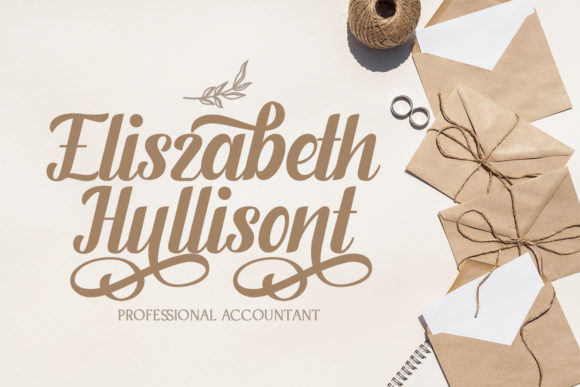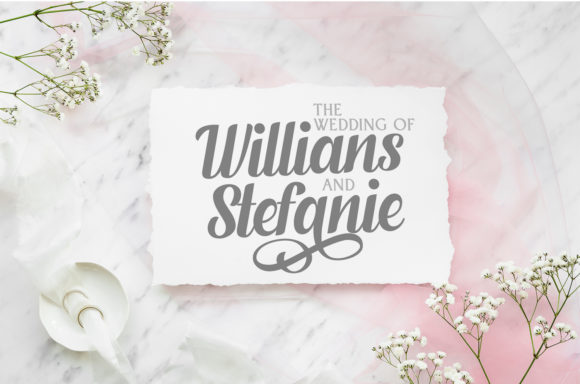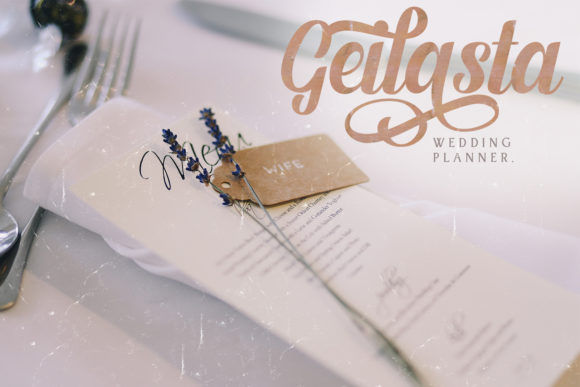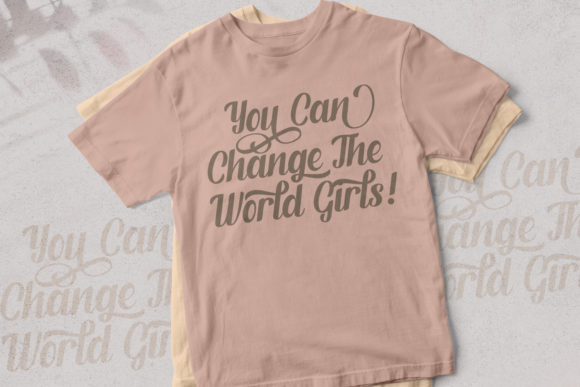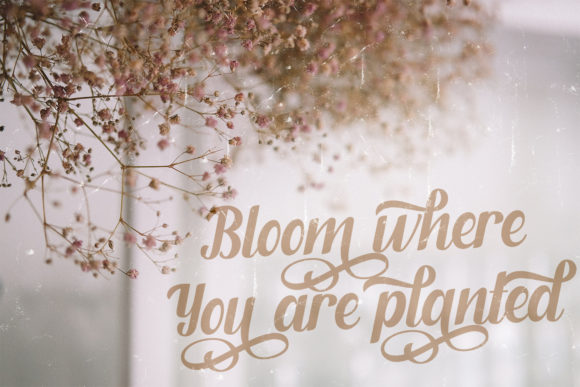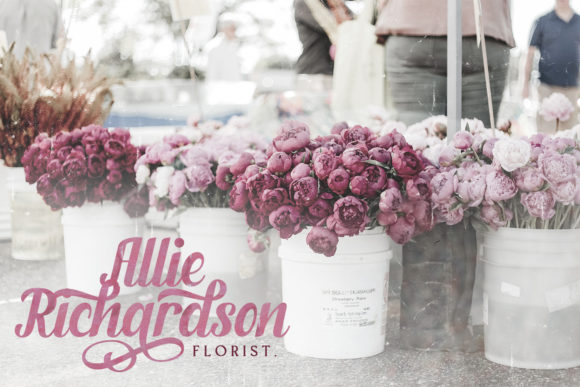
Fendysa Font: The Ultimate Handwritten Script for Creative Projects
Are you a designer, crafter, or DIY enthusiast looking for a font that can add a touch of personality to your creative projects? Look no further than Fendysa Font! This cute and casual handwritten font is designed to bring a friendly feel to any design, making it perfect for a wide range of applications, from Instagram posts to calligraphy scripts.
What Makes Fendysa Font So Special?
Fendysa Font is a script font that boasts an incredibly friendly feel, making it ideal for designers and crafters who want to add a personal touch to their work. The font features gorgeous swashes and ligatures that make it incredibly versatile, allowing you to use it for a variety of creative projects. Whether you’re designing a social media post, a DIY project, or a marketing material, Fendysa Font is sure to turn your idea into a true piece of art!
Key Features of Fendysa Font
So, what makes Fendysa Font so special? Here are some of its key features:
- Alternate Glyphs and Ligatures: The font features a wealth of special features, including alternate glyphs and ligatures. These allow you to customize your text and add a unique touch to your designs.
- Cute and Casual: Fendysa Font has a cute and casual feel that’s perfect for designers and crafters who want to add a personal touch to their work.
- Versatile: The font’s gorgeous swashes and ligatures make it incredibly versatile, allowing you to use it for a wide range of creative projects.
Uses for Fendysa Font
So, what can you use Fendysa Font for? The possibilities are endless! Here are a few ideas to get you started:
- Instagram Posts: Add a touch of personality to your Instagram posts with Fendysa Font. Use it to create eye-catching captions, quotes, and stories that will engage your followers.
- DIY Projects: Fendysa Font is perfect for DIY projects, such as crafting, scrapbooking, and journaling. Use it to add a personal touch to your projects and make them stand out.
- Calligraphy Scripts: The font’s beautiful swashes and ligatures make it ideal for calligraphy scripts. Use it to create stunning pieces of art that will impress your friends and family.
- Marketing Materials: Fendysa Font can also be used for marketing materials, such as brochures, flyers, and posters. Use it to add a touch of personality to your brand and make your materials stand out.
- Play with Swashes and Ligatures: The font’s swashes and ligatures are one of its best features. Play around with them to add a unique touch to your text.
Fendysa Font is a versatile and beautiful handwritten script that’s perfect for designers, crafters, and DIY enthusiasts. With its cute and casual feel, gorgeous swashes and ligatures, and PUA encoding, it’s an ideal font for a wide range of creative projects. Whether you’re looking for a font for Instagram, calligraphy scripts, or marketing materials, Fendysa Font is sure to turn your idea into a true piece of art!